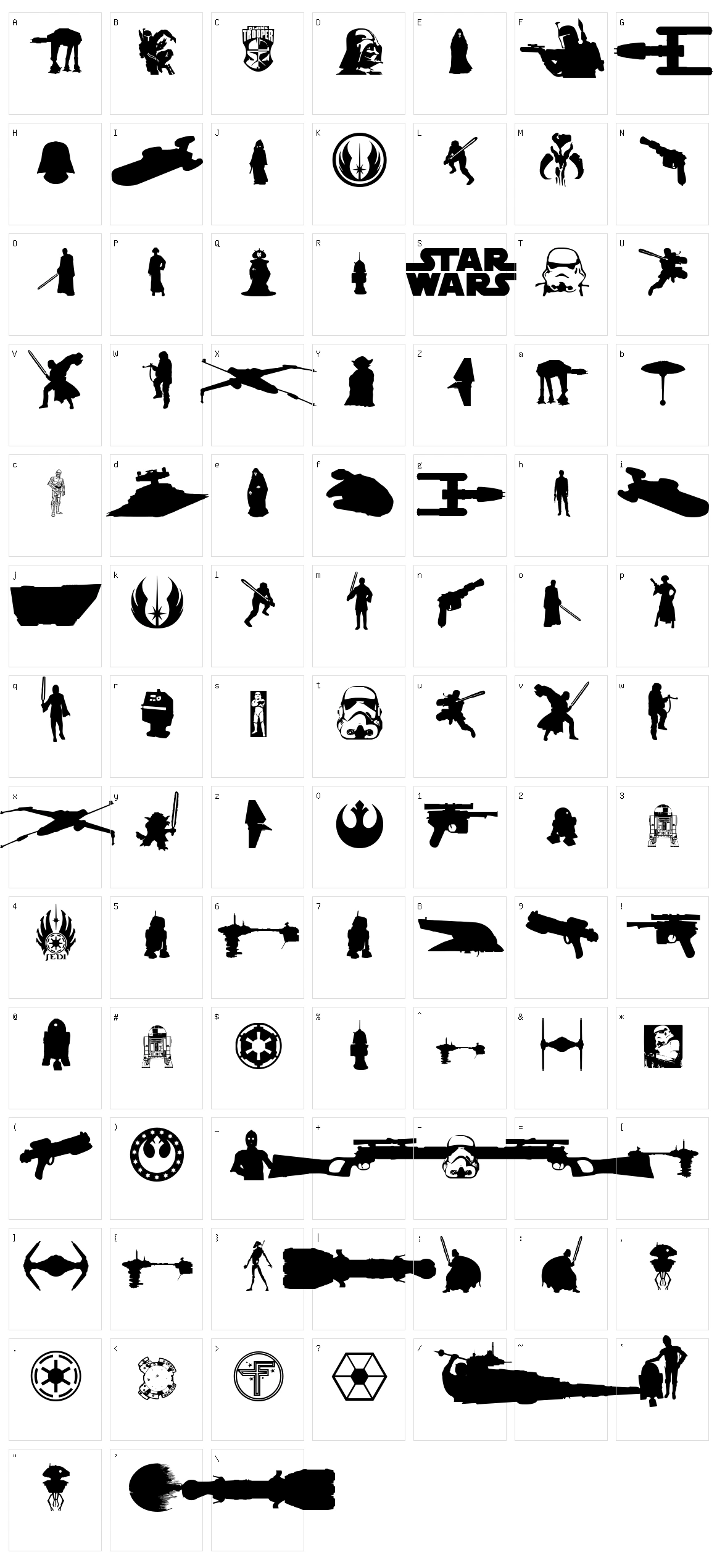
Galaxy Far Far Away
Designed by: Iconian Fonts
This is a dingbat font with over 80 Star Wars related glyphs. Logos, spacecraft, characters and more.
Several glyphs have a mirrored counterpart between the upper and lower cases (as well as the numerals/punctuation). Use of a character map program, such as Windows' Character Map, will be very helpful in exploring and using this font.